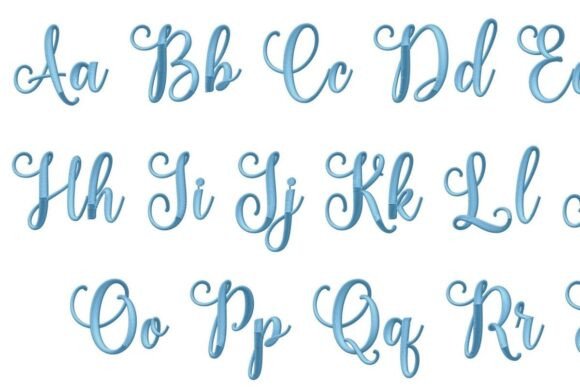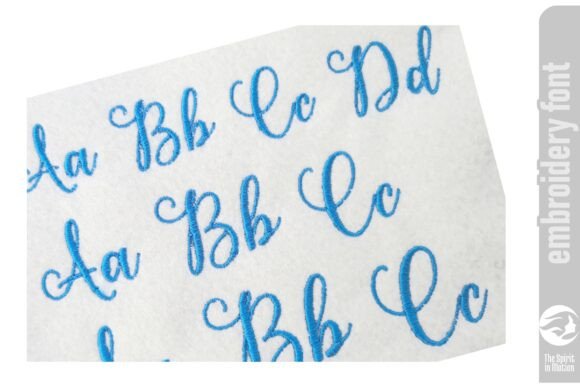
Angista Script Embroidery Font
Add a stylish and modern flair to your embroidery projects with this elegant script font. Perfect for personalizing clothing, accessories, or home décor, its flowing script design adds elegance and charm to monograms, quotes, and decorative details.